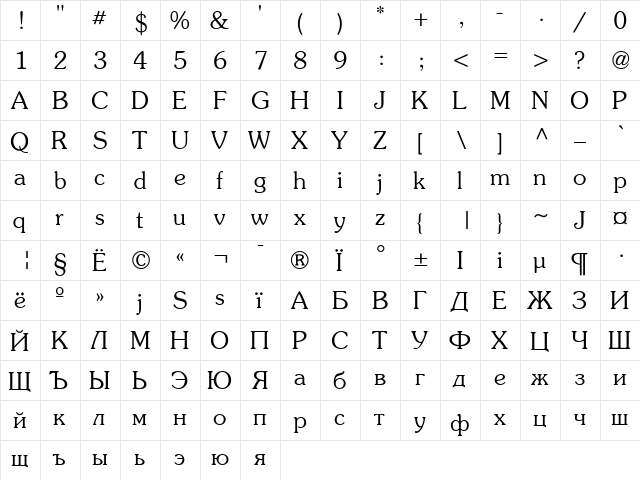
Prestige-Roman Medium
Design Context for Prestige-Roman Typeface
Prestige-Roman takes a measured approach to typography — its balanced proportions and neutral character make it a reliable workhorse for both digital and print work.